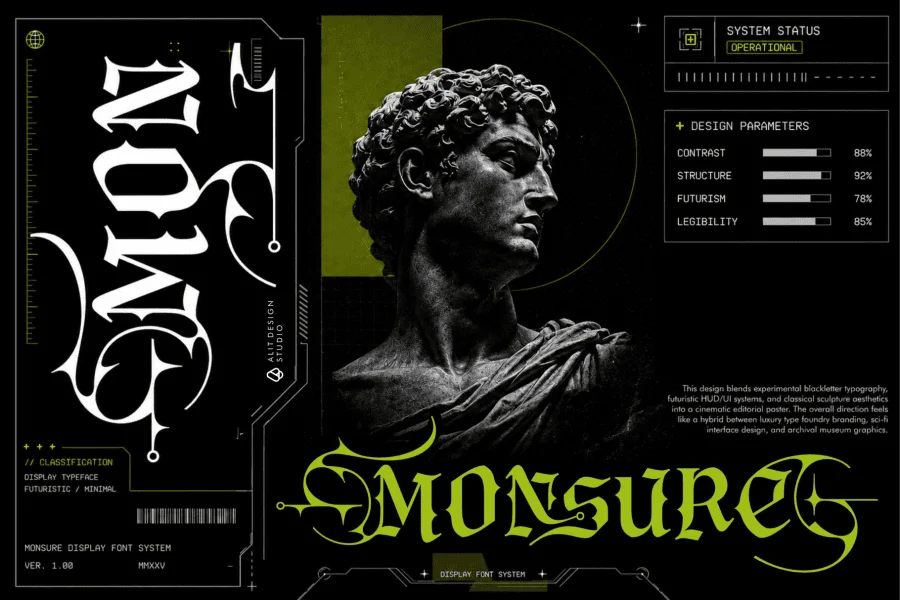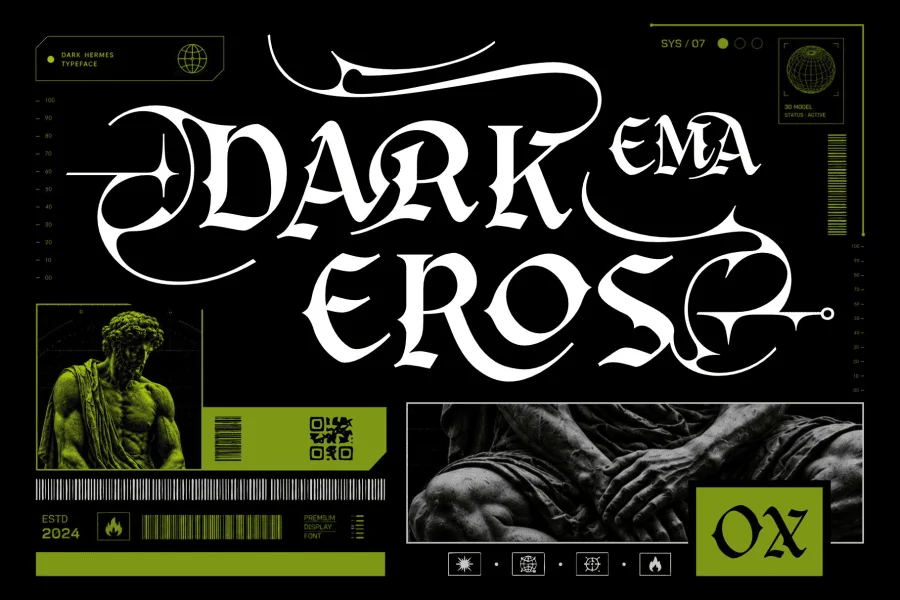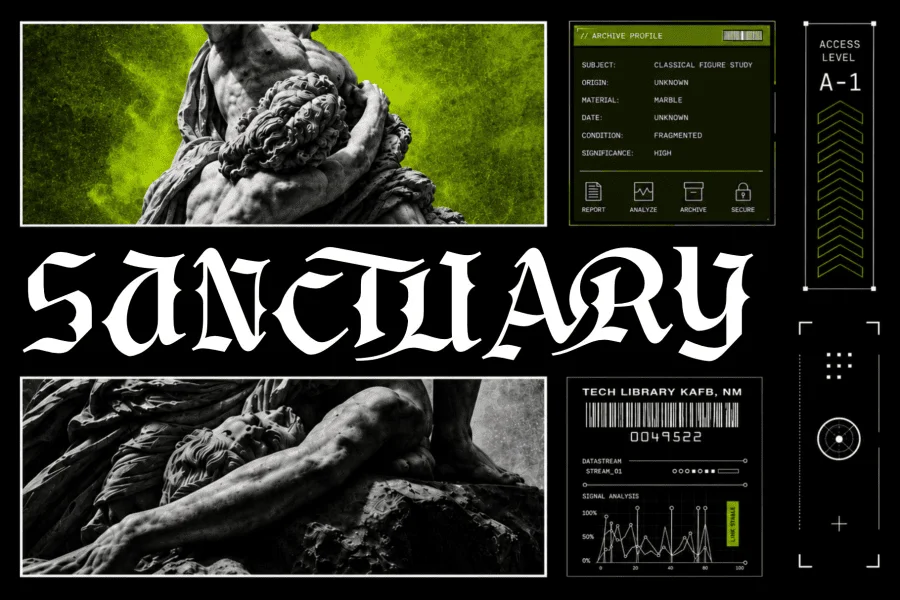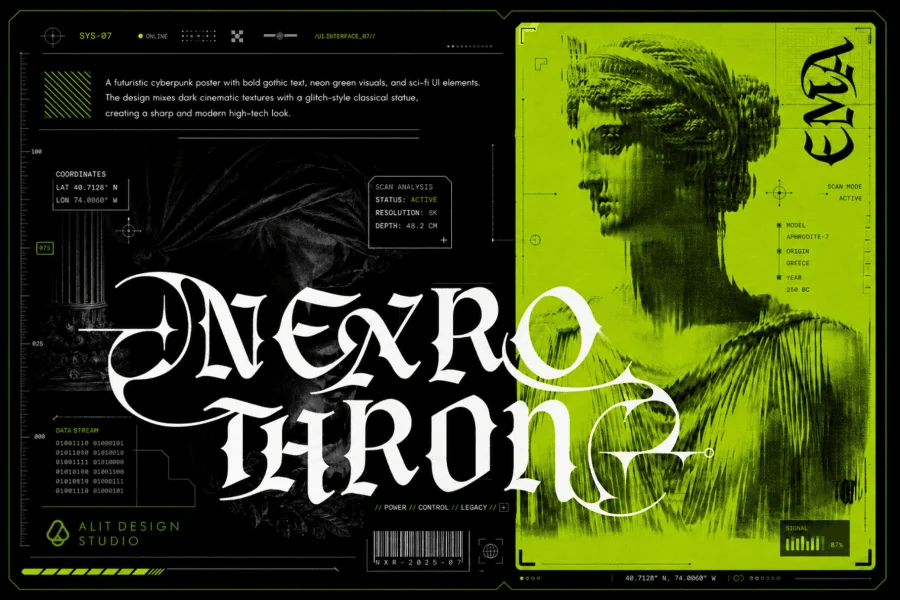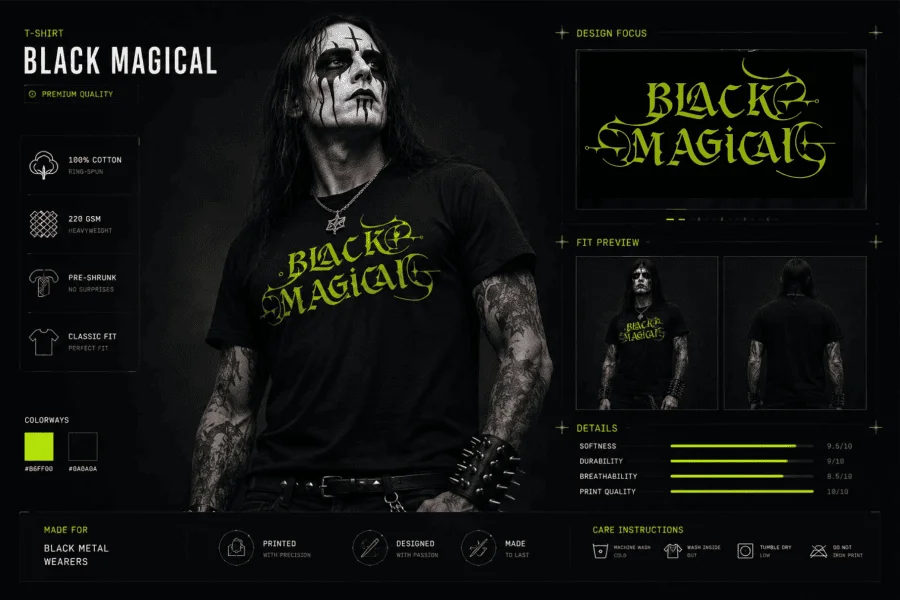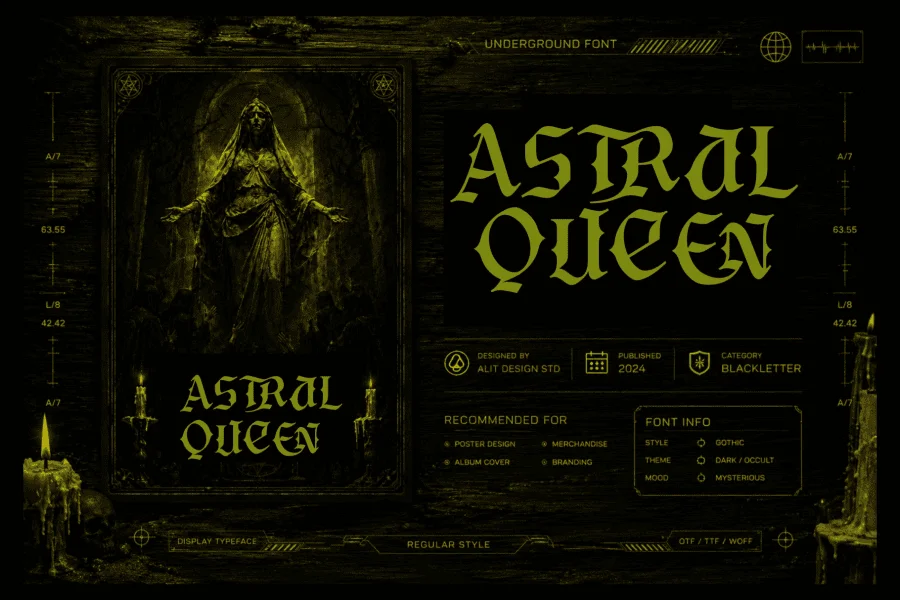
Dark Hermes Typeface – Mythical & Powerful Display Font
Unleash a bold, commanding, and mysterious aura in your designs with Dark Hermes Typeface. Inspired by classic heritage shapes fused with a modern, edgy twist, this typeface strikes a perfect balance between sharp elegance and powerful authority.
Its strong, razor-sharp terminals and unique letterforms are engineered to capture attention instantly, making it an exceptional choice for creators who want to make a lasting statement.
Dark Hermes is a highly versatile display font designed for high-impact projects. It features comprehensive OpenType features, including beautiful alternative characters (stylistic alternates) and unique ligatures that allow you to create custom typographic layouts effortlessly.